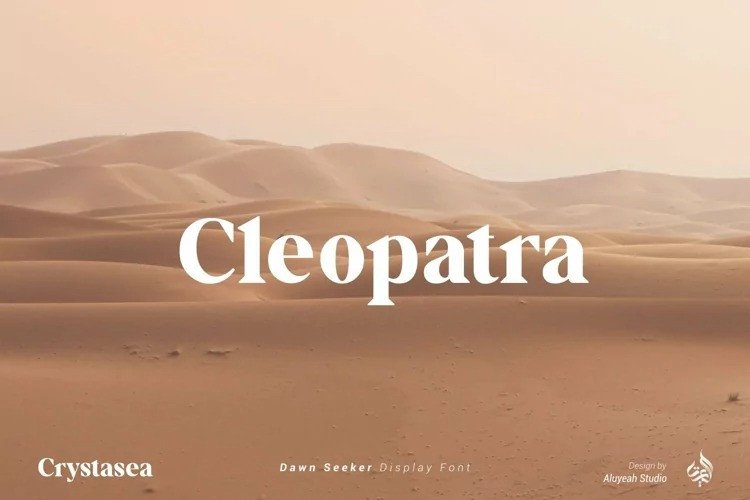
Crystasea Font
Crystasea Font is a fancy modern bold serif typeface created by Aluyeah Studio with Stunning 4 weight Style.
Very suitable for magazine, headline, website, ads, product package and all type of design project you have.